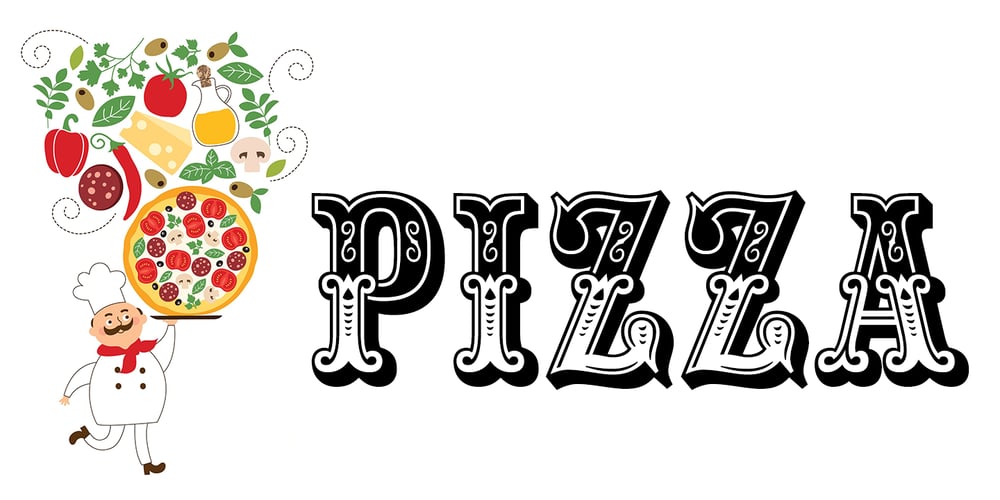
Pizza
Pizza font
Pizza Font Family was designed by Michael Hagemann and published by FontMesa. Pizza contains 24 styles and family package options. Pizza is a font fusion of our Saloon Girl and Mi Casa font families.Our new Pizza font will look great for headlines in your new restaurant menu as well as the sign out front.Pizza offers different levels of ornamentation to choose from to best suit your design needs.Pizza Margherita is a solid black version for plain text.Fill fonts are also available, however, you’ll need an application that works in layers to take advantage of the Pizza fill fonts.Fill fonts in the Pizza font family are not meant to be used as a stand alone font, please use the Pizza Margherita font if you need a solid black weight.Pizza is a trademark of FontMesa LLC, initial release December 6-2021